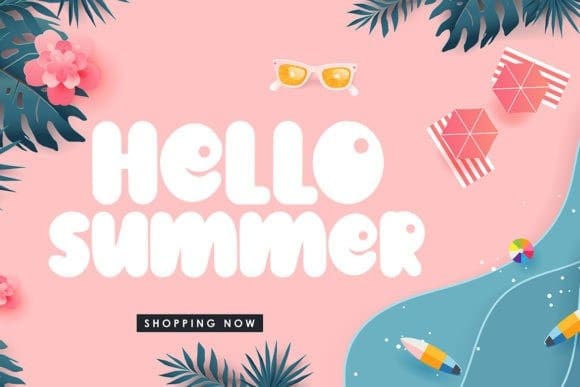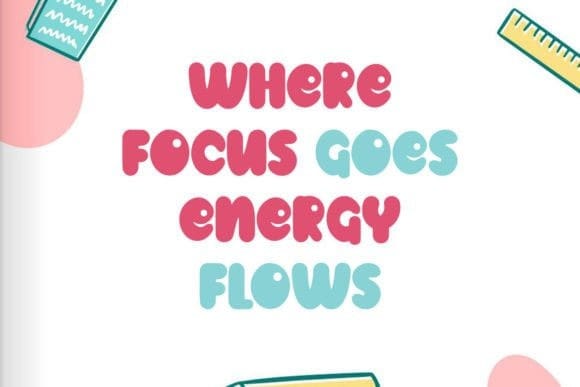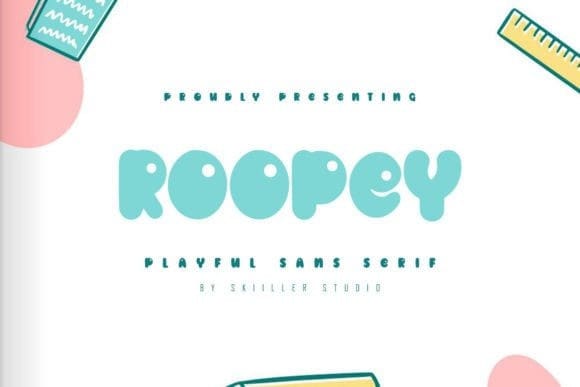
Roopey Playful Font
Roopey Playful Font is a fun and bubbly display font. No matter the topic, this font will be an incredible asset to your fonts’ library, as it has the potential to elevate any creation.